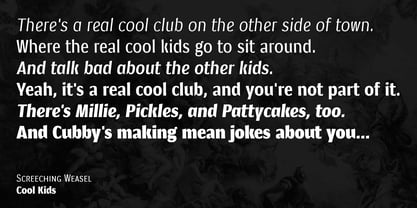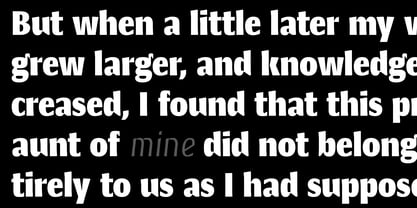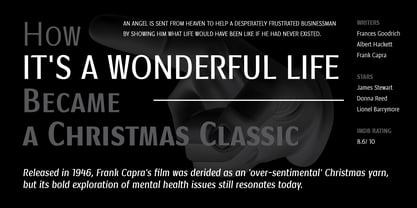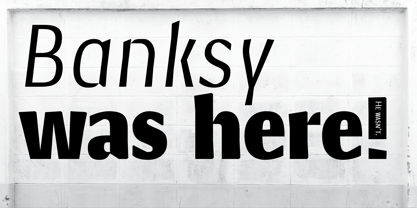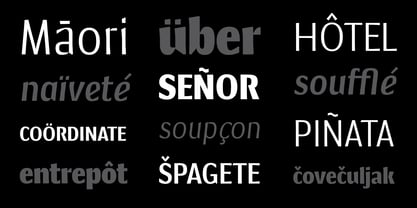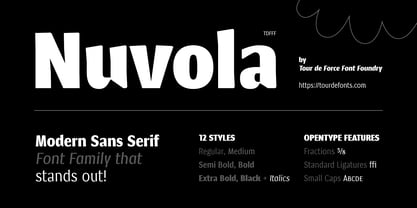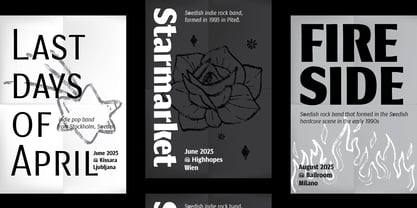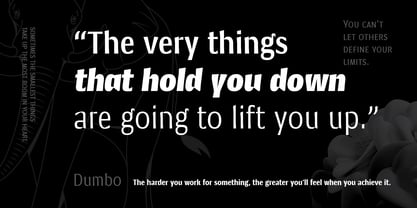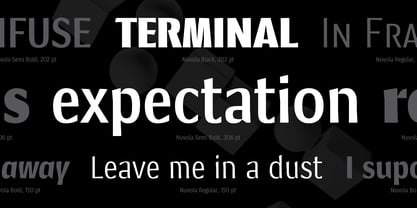
Nuvola
by Tour De Force
The Nuvola Font Family was designed by Dusan Jelesijevic and published by Tour De Force. Nuvola contains 12 styles and family package options. More about this family
Nuvola font family is categorized as modern sans serif by it's characteristics.
It is designed with purpose to fit into every project – from editorial use (magazines, books, catalogues, brochures...) to package design, posters, outdoor graphic or websites, ebooks and apps as well. Nuvola looks pretty well in small sizes, while in bigger sizes Nuvola presents all its details. Letters in words look compact, stable, with decent dose of contrast and rhythm – all visually well balanced to display its smooth appearance.
Nuvola font family is available in 14 styles (7 weights and 7 Italics) packed with Small Caps, Fractions and Standard Ligatures as OpenType features.